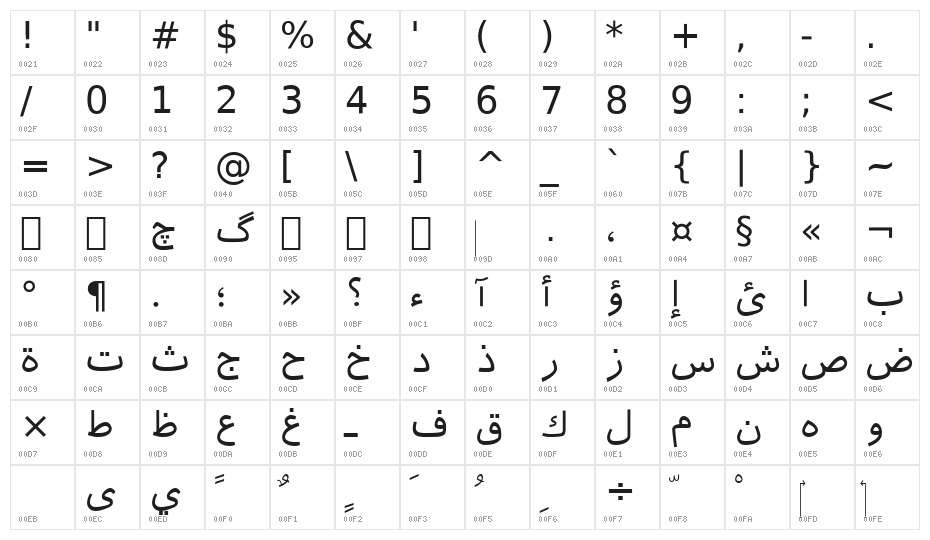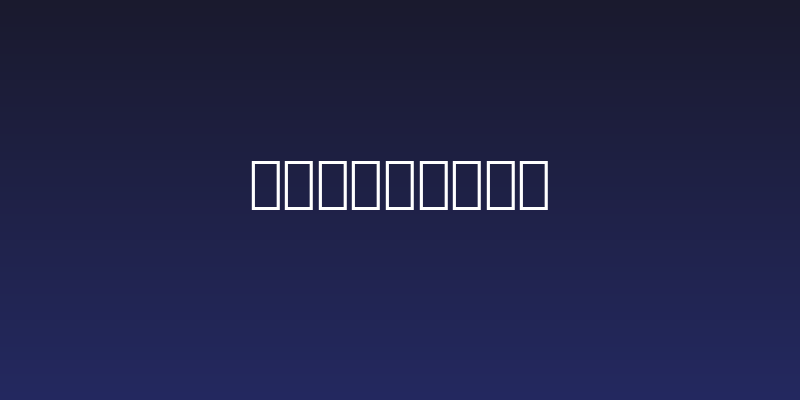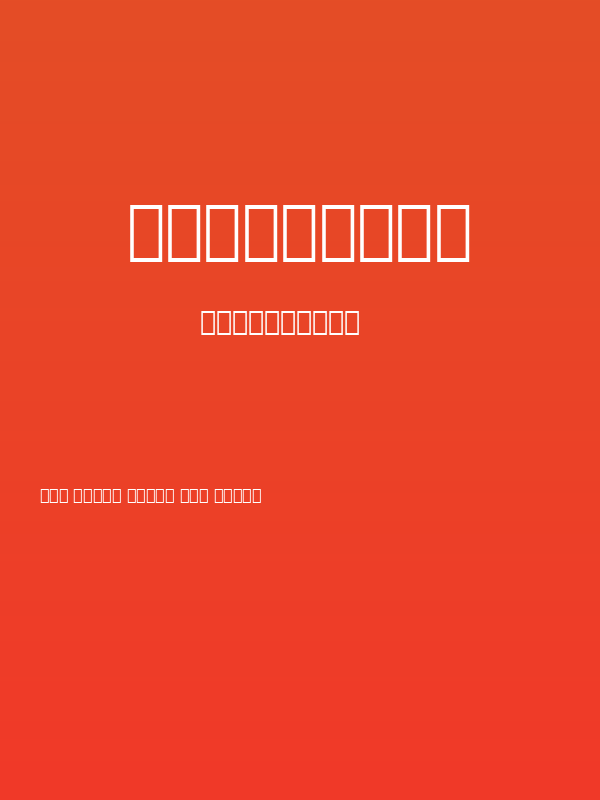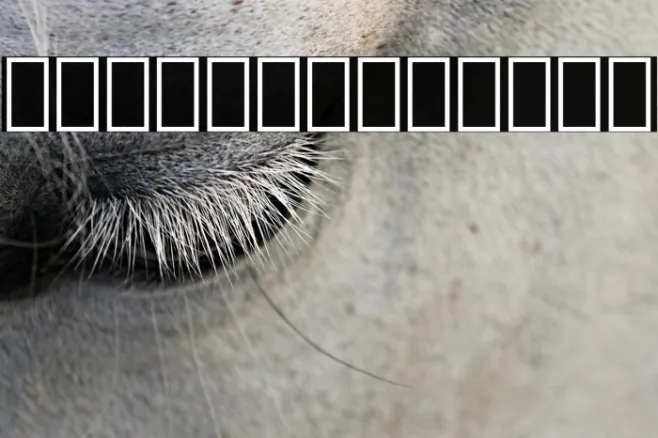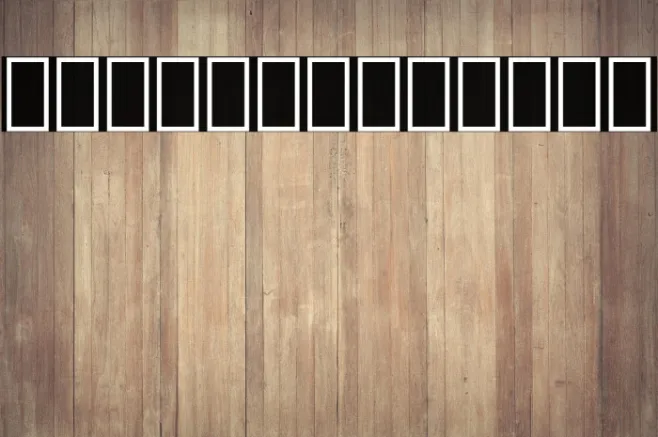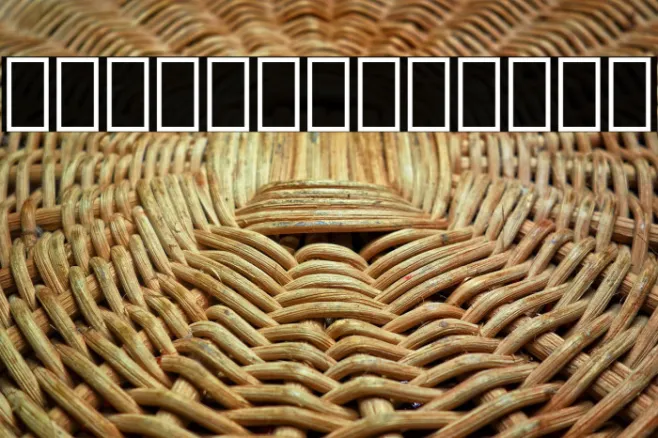
IranSansZ Font
IranSansZ Description
This font features a clean and modern sans-serif design, characterized by its simplicity and readability. The characters are evenly spaced with a consistent stroke width, contributing to a balanced and harmonious appearance. The numerals are clear and distinct, making them ideal for both digital and print media. The special characters are well-defined, ensuring versatility across various applications. This font's straightforward style makes it suitable for a wide range of uses, from professional documents to casual presentations.
| Proposed Projects | Ideal for corporate branding, website design, user interfaces, and print media. |